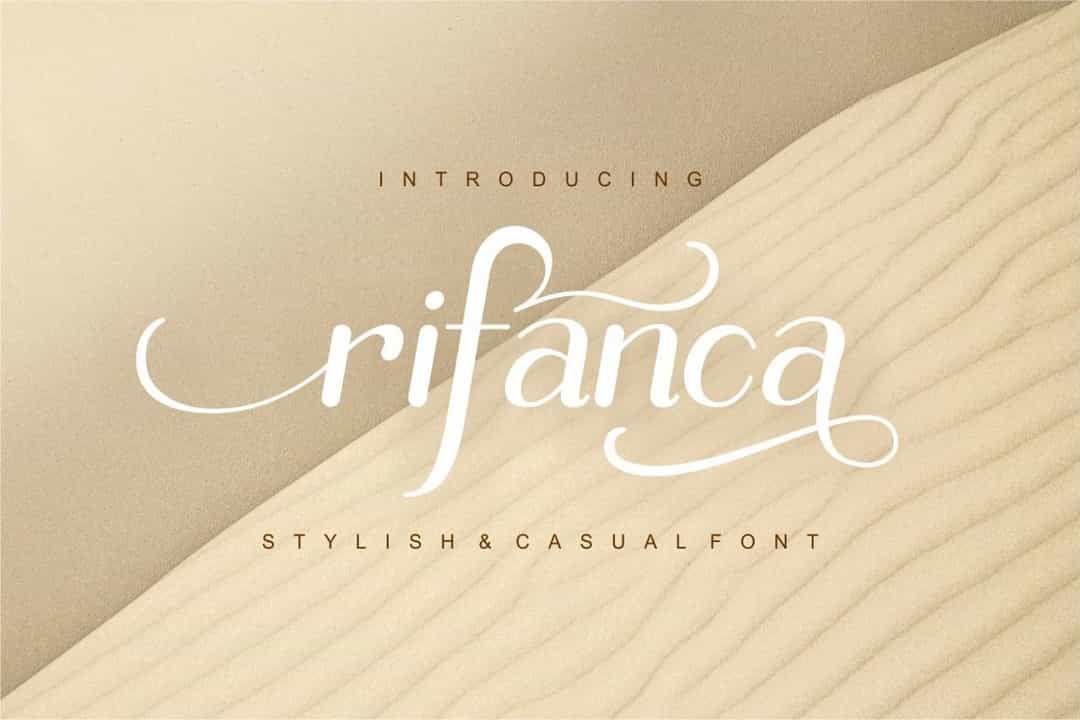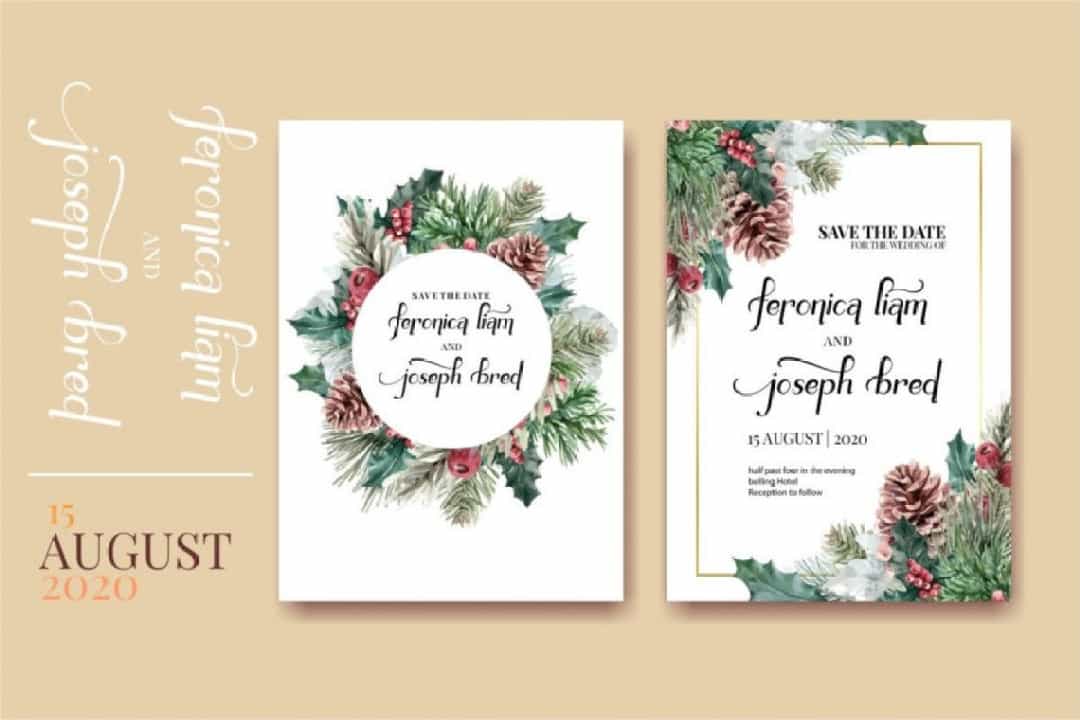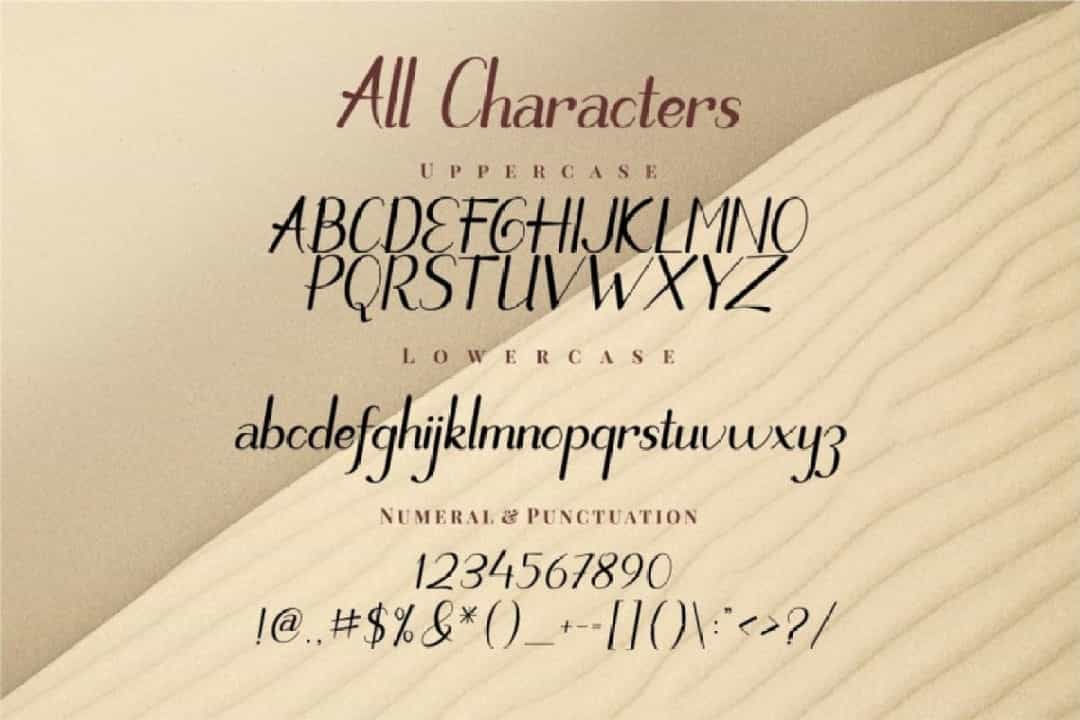
Rifanca is another of the fine handwritten fonts intended to be characterized by both elegance and gracefulness, beauty and fluidity of characters that help to enliven any design! Rifancais is available on all sorts of printed materials such as signs and posters, business cards, and many more; you can be sure that it will enliven any of your ideas!